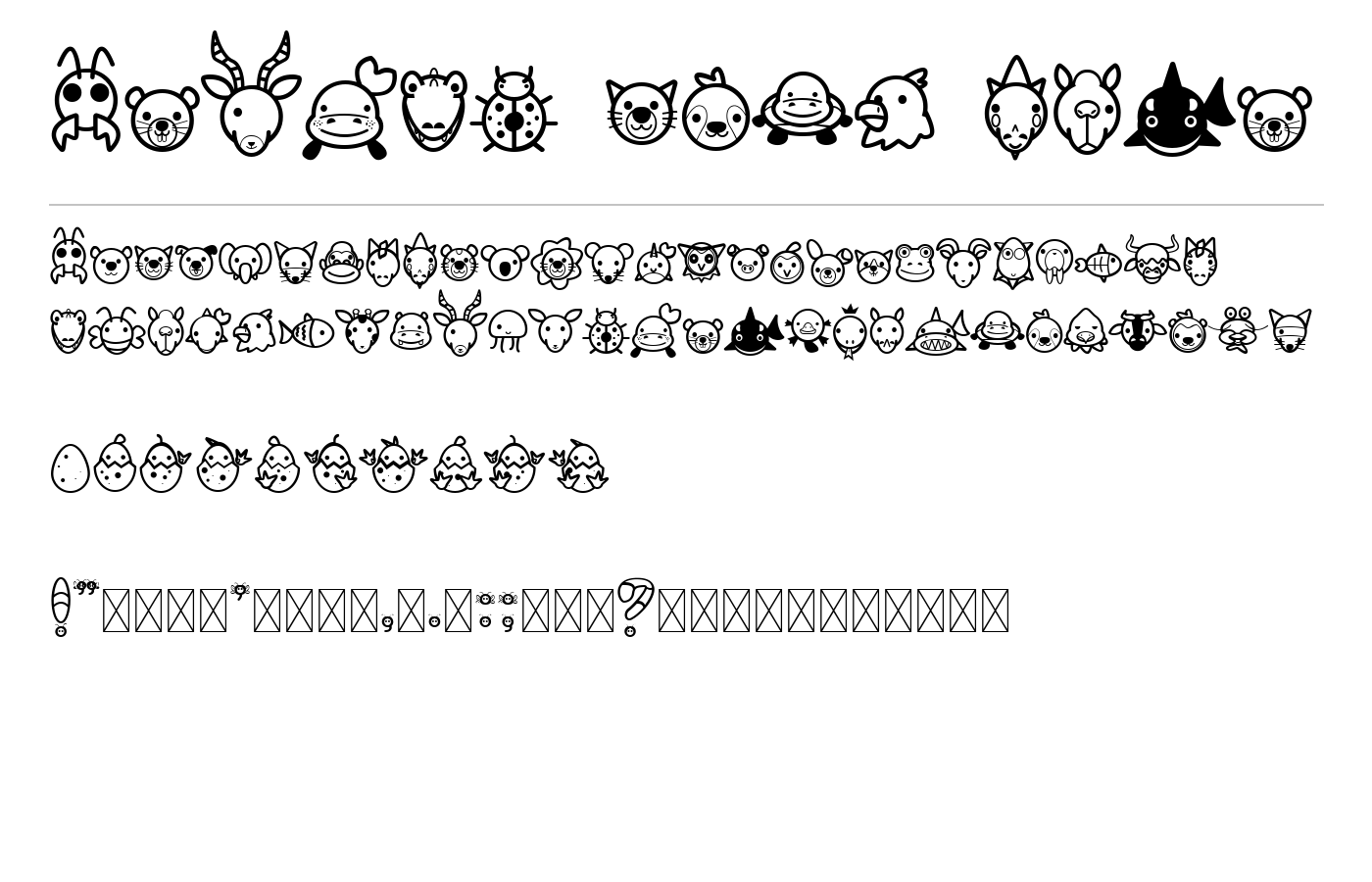
Animal Cute Icon Font is a playful and charming icon font featuring simple, bold animal faces and figures with clean, rounded lines and minimal details. Its friendly and approachable style makes it perfect for children's content, educational materials, apps, and branding that aims to convey warmth and fun. This font works well in digital interfaces, logos, and playful packaging where a cute, lighthearted touch is needed.
Animal Cute Icon Font